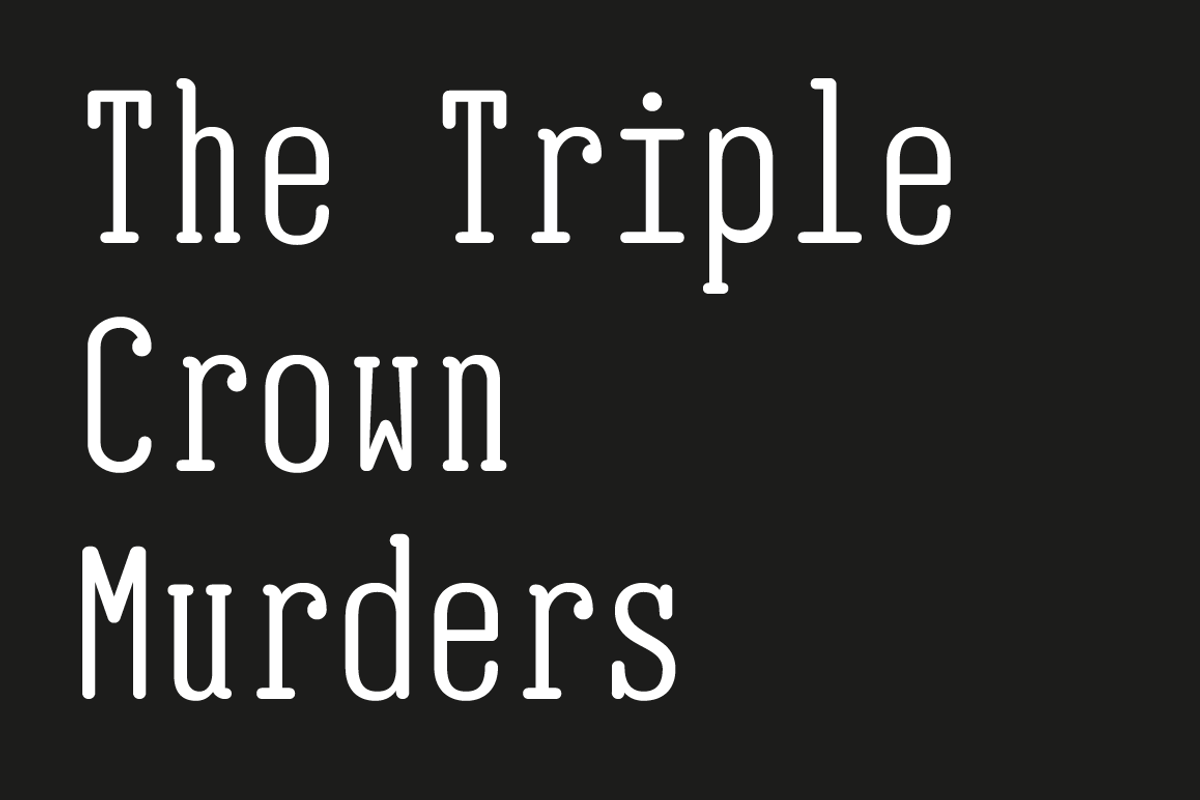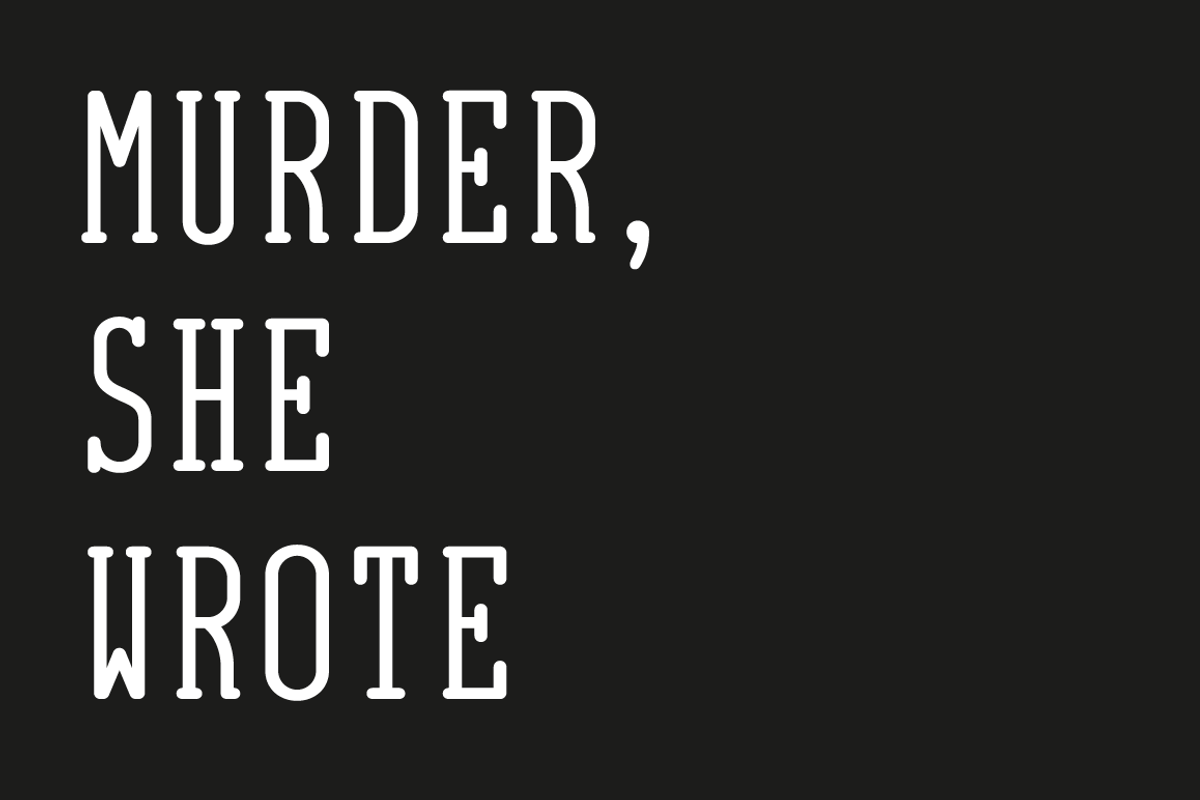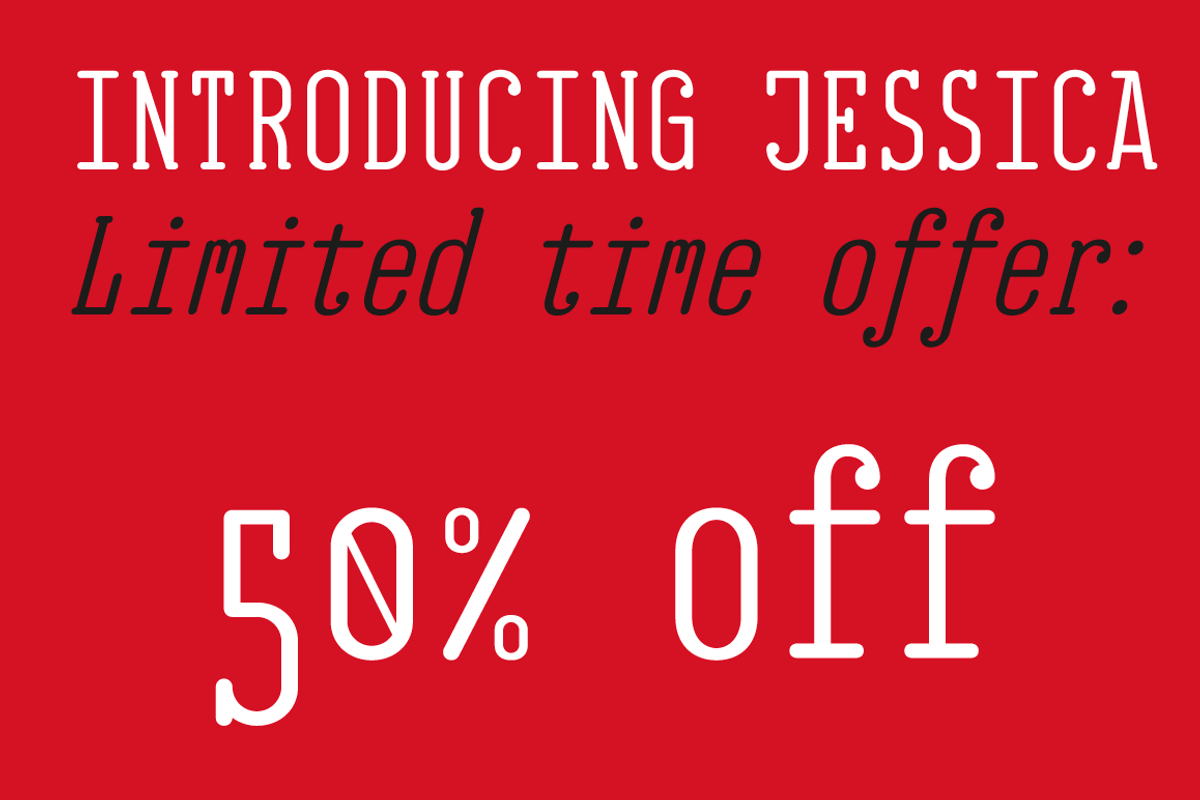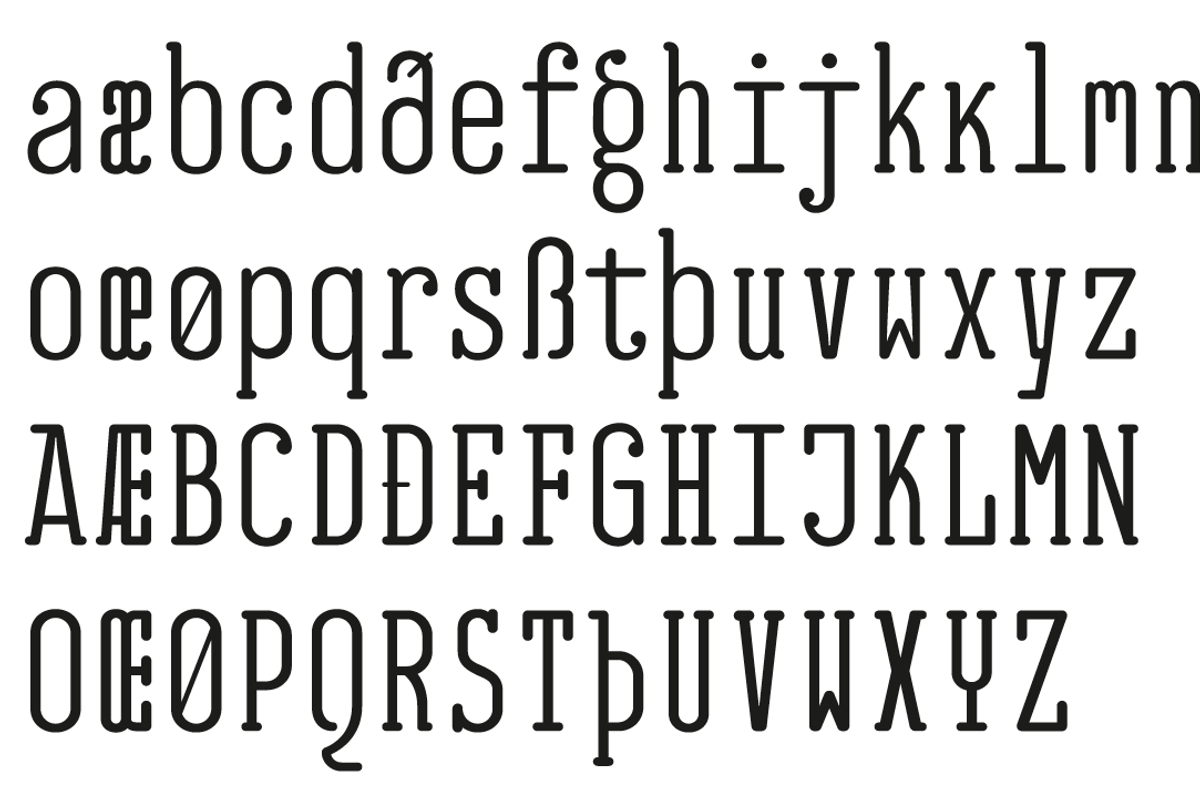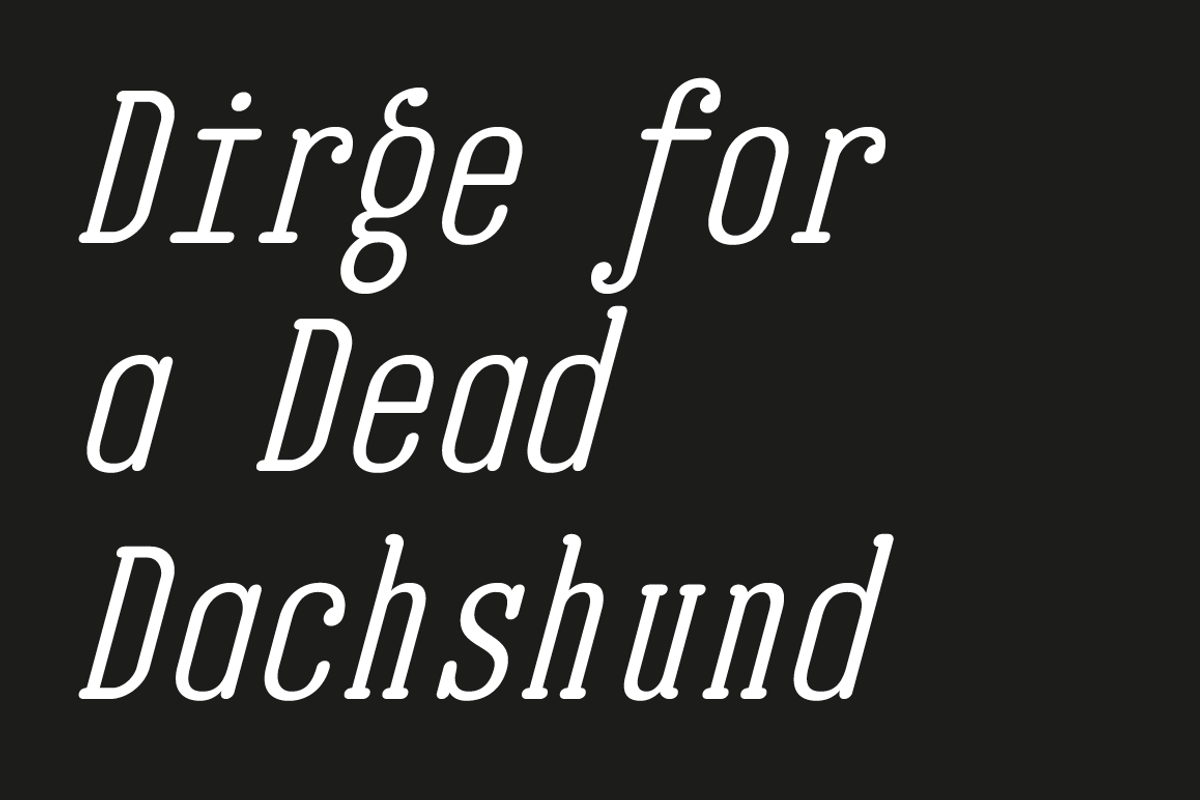
EB Jessica Font Family -50 % by Erik Bertell Fonts is a font selected for branding, posters, packaging, typography.
Why EB Jessica Font Family -50 % is worth a look
EB Jessica Font Family -50 % by Erik Bertell Fonts fits naturally into Branding, posters, packaging, typography.